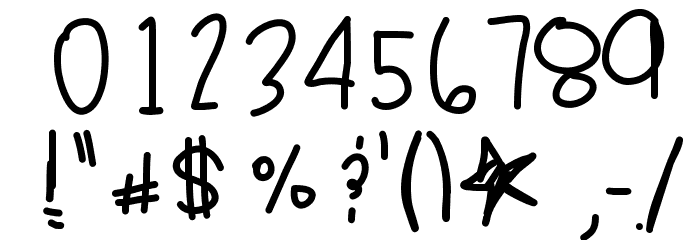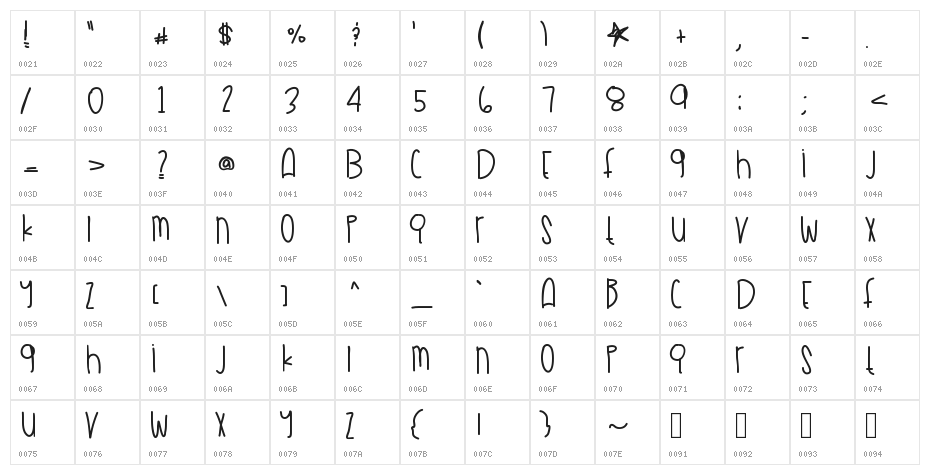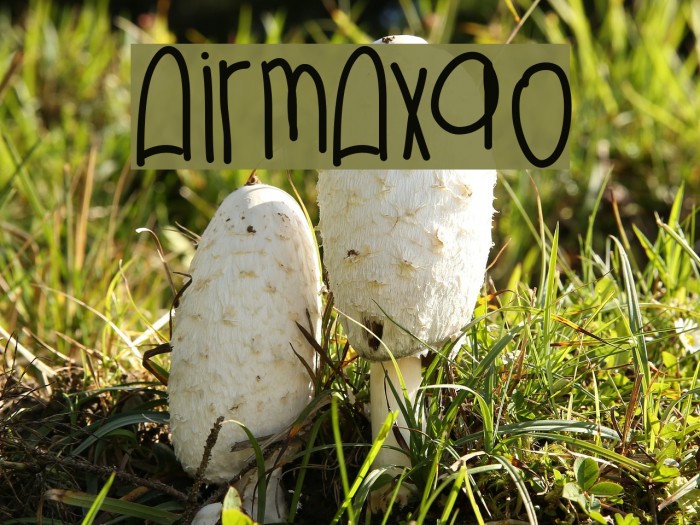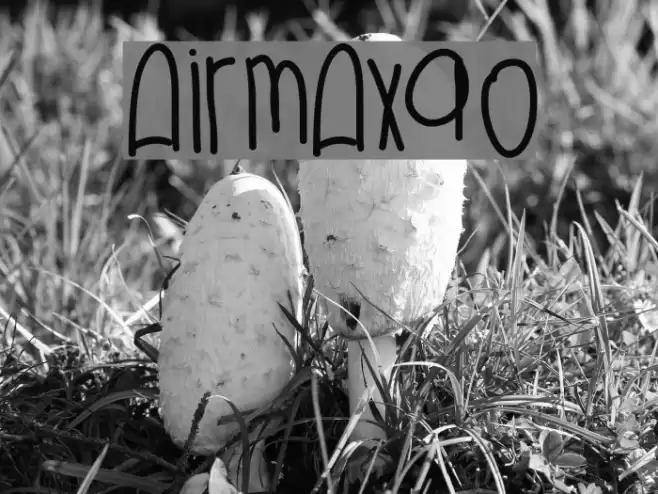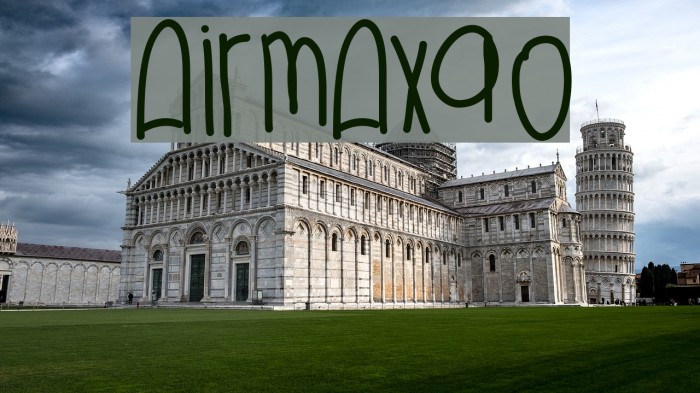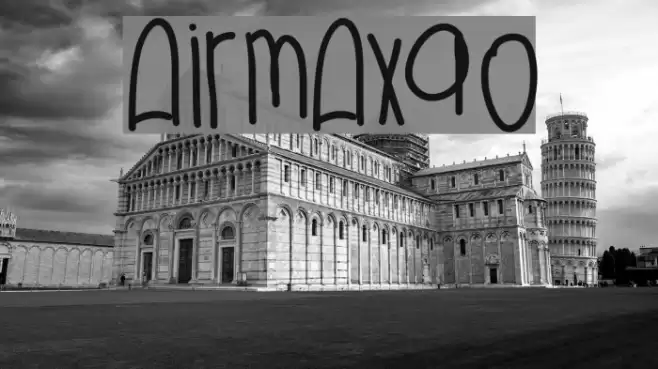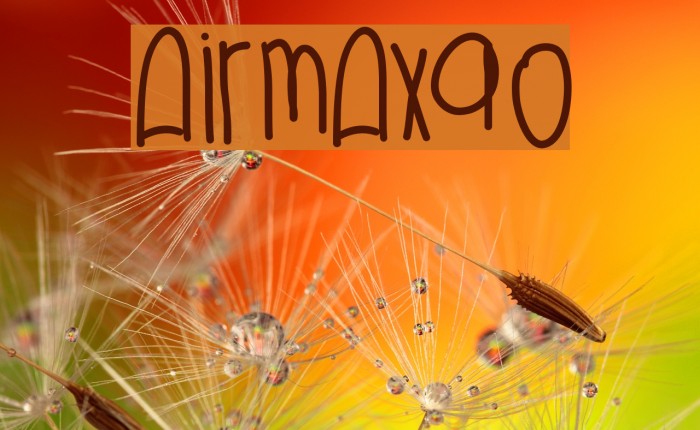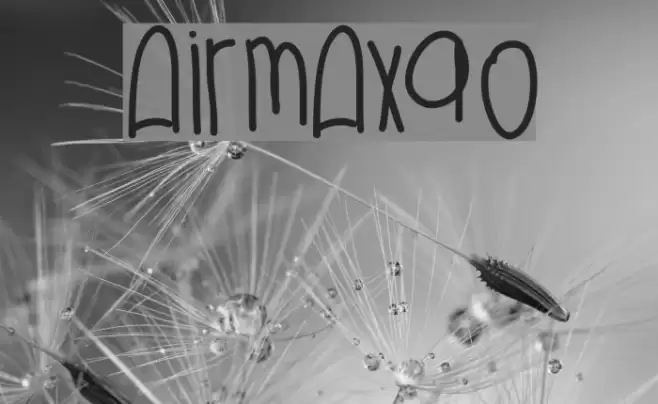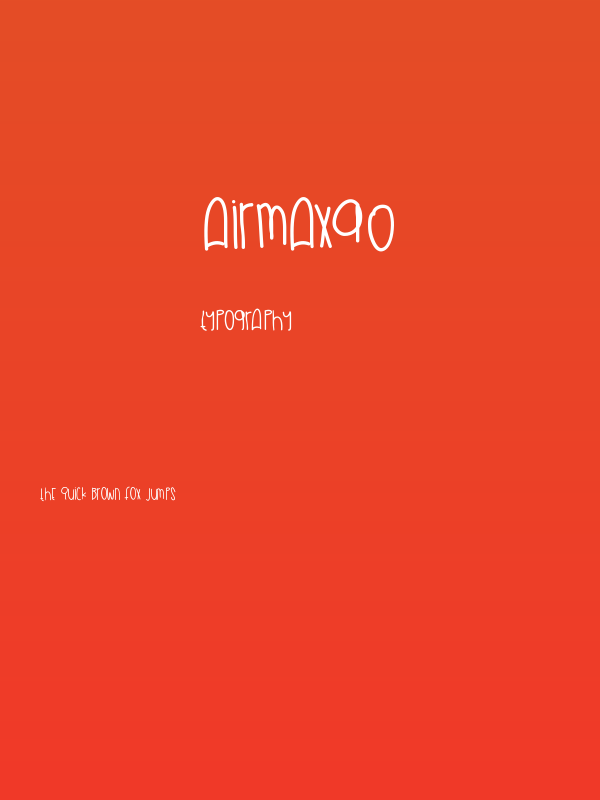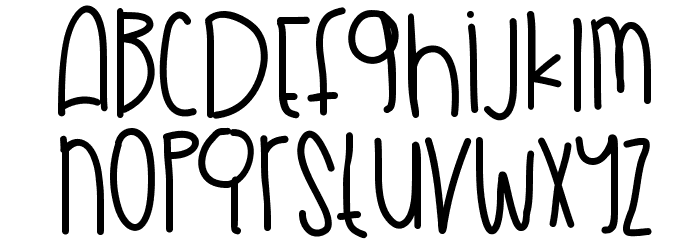
AirMax90 Font
AirMax90 Description
This font features a playful and casual handwritten style, characterized by its tall, narrow letters and slightly irregular strokes. The uppercase and lowercase letters maintain a consistent height, giving it a cohesive appearance. The numbers and special characters follow the same style, adding to the font's overall charm. Its informal and friendly look makes it suitable for projects that aim to convey a sense of approachability and creativity.
| Proposed Projects | Ideal for children's books, greeting cards, casual branding, and social media graphics. |